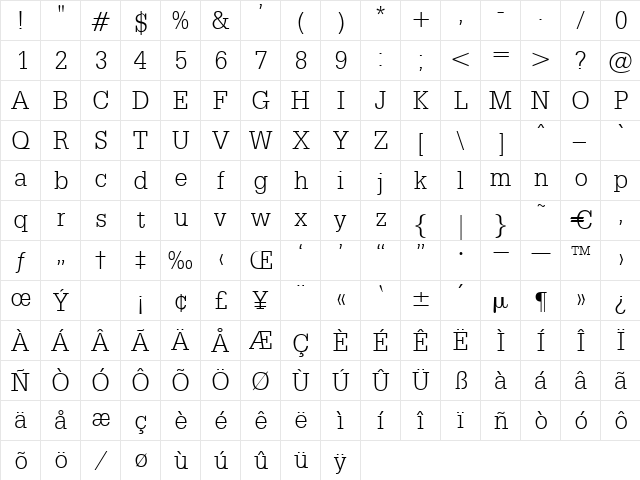
Savanne Regular
Design Context for Savanne Typeface
Savanne is a composed and adaptable typeface that performs quietly and consistently across a wide range of design contexts.